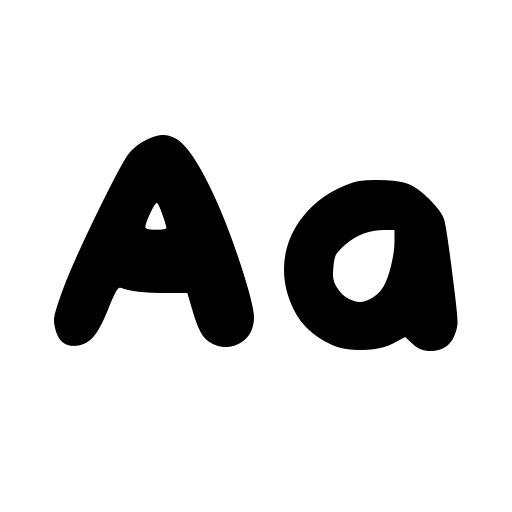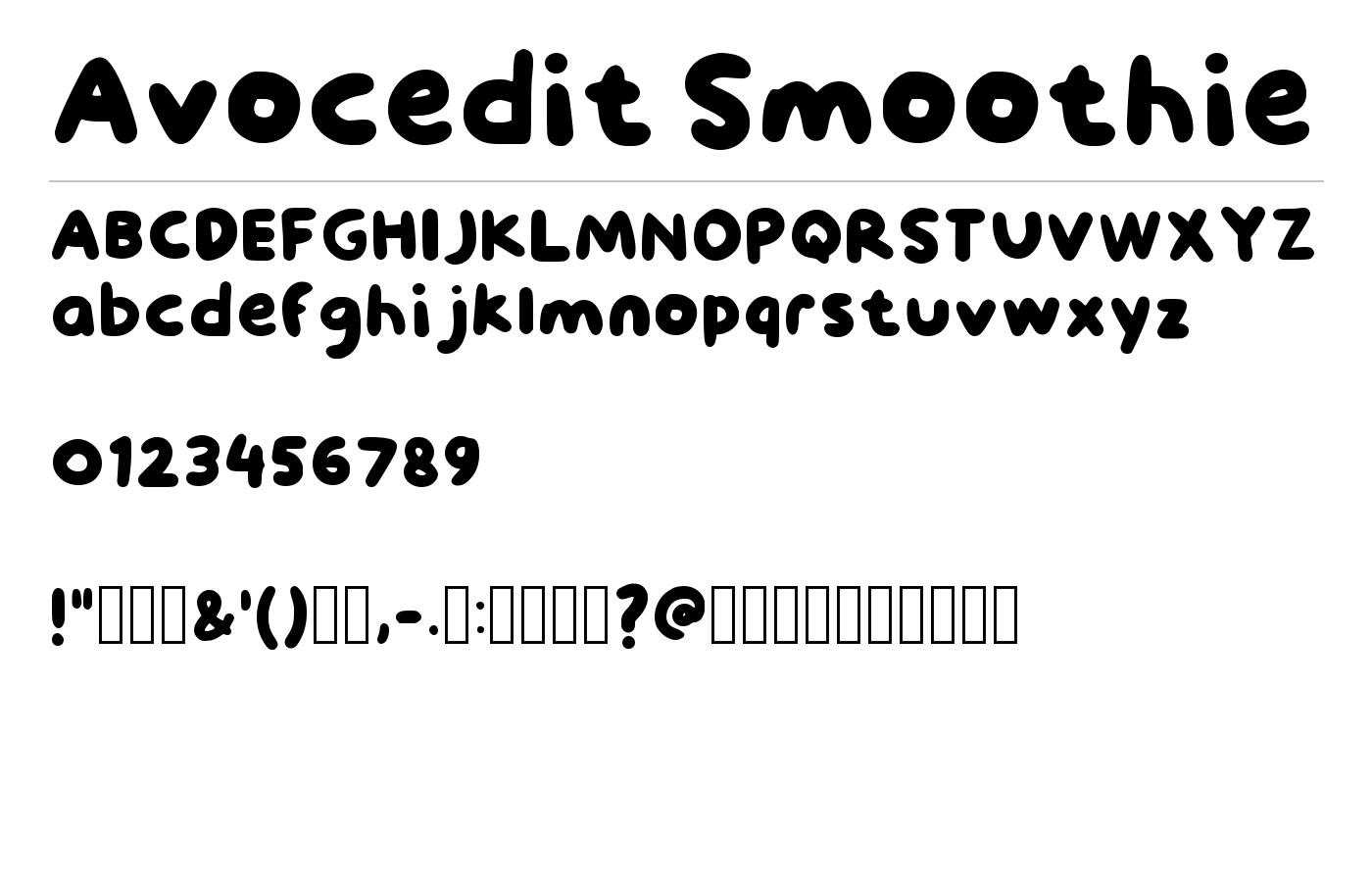
Avocedit Smoothie is a playful, rounded sans serif font with a friendly and approachable feel. Its soft, bold strokes and casual letterforms make it ideal for informal designs, children’s content, or creative branding that aims to be fun and welcoming. This font works well for headlines, logos, and packaging where a cheerful, hand-drawn style helps convey warmth and personality.
Avocedit Smoothie Font